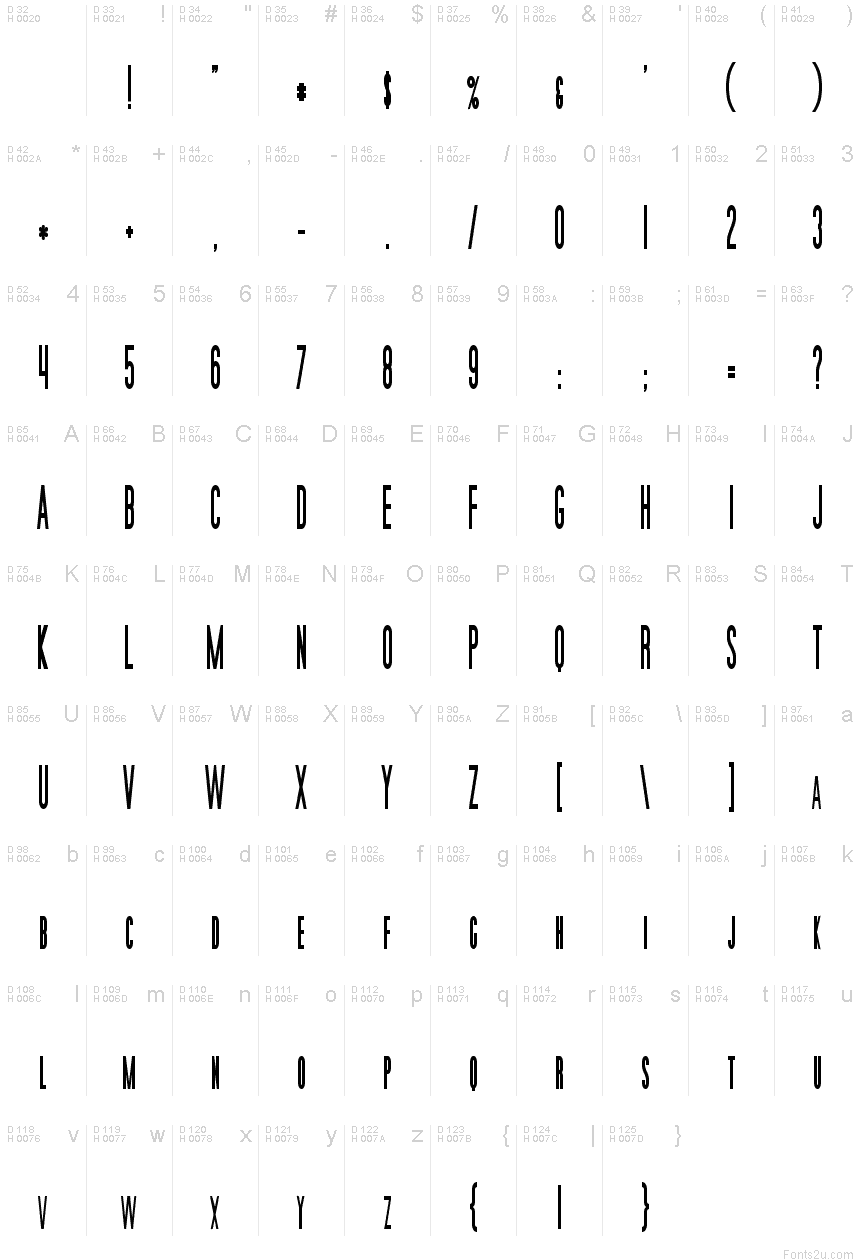
Movie Poster Condensed Bold
Movie Poster Condensed Bold font by ShyWedge is a free condensed sans serif font with tall, narrow letters and sharp, plain outlines. The tight proportions and upright shapes give it a direct, poster-like presence without any extra decoration.
Movie Poster Condensed Bold works well for film titles, event flyers, teaser banners, game graphics, and retro-inspired branding that needs a narrow display face. Its condensed structure keeps short words compact, so it also suits credits, cover lines, signs, and logo text where space is limited.